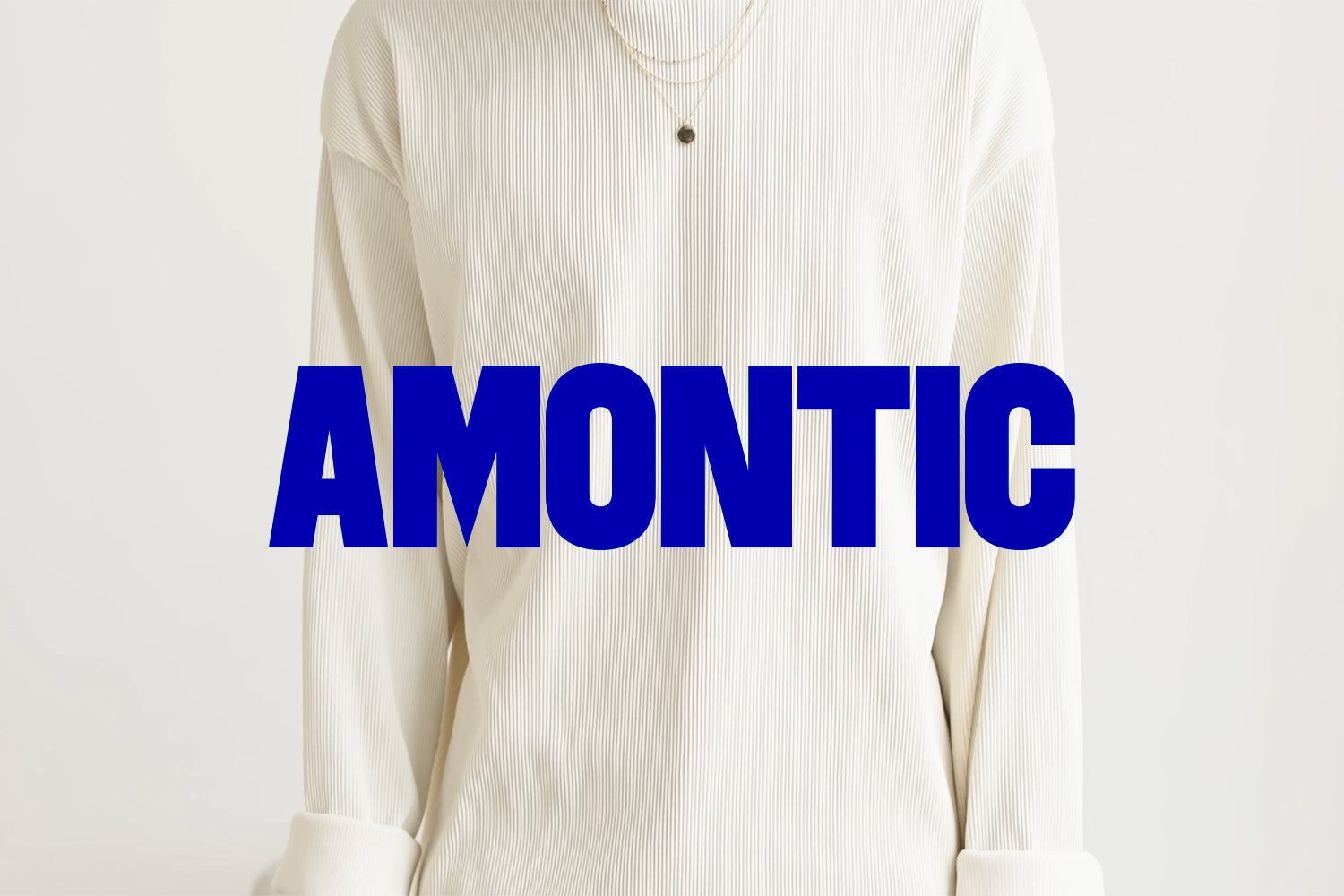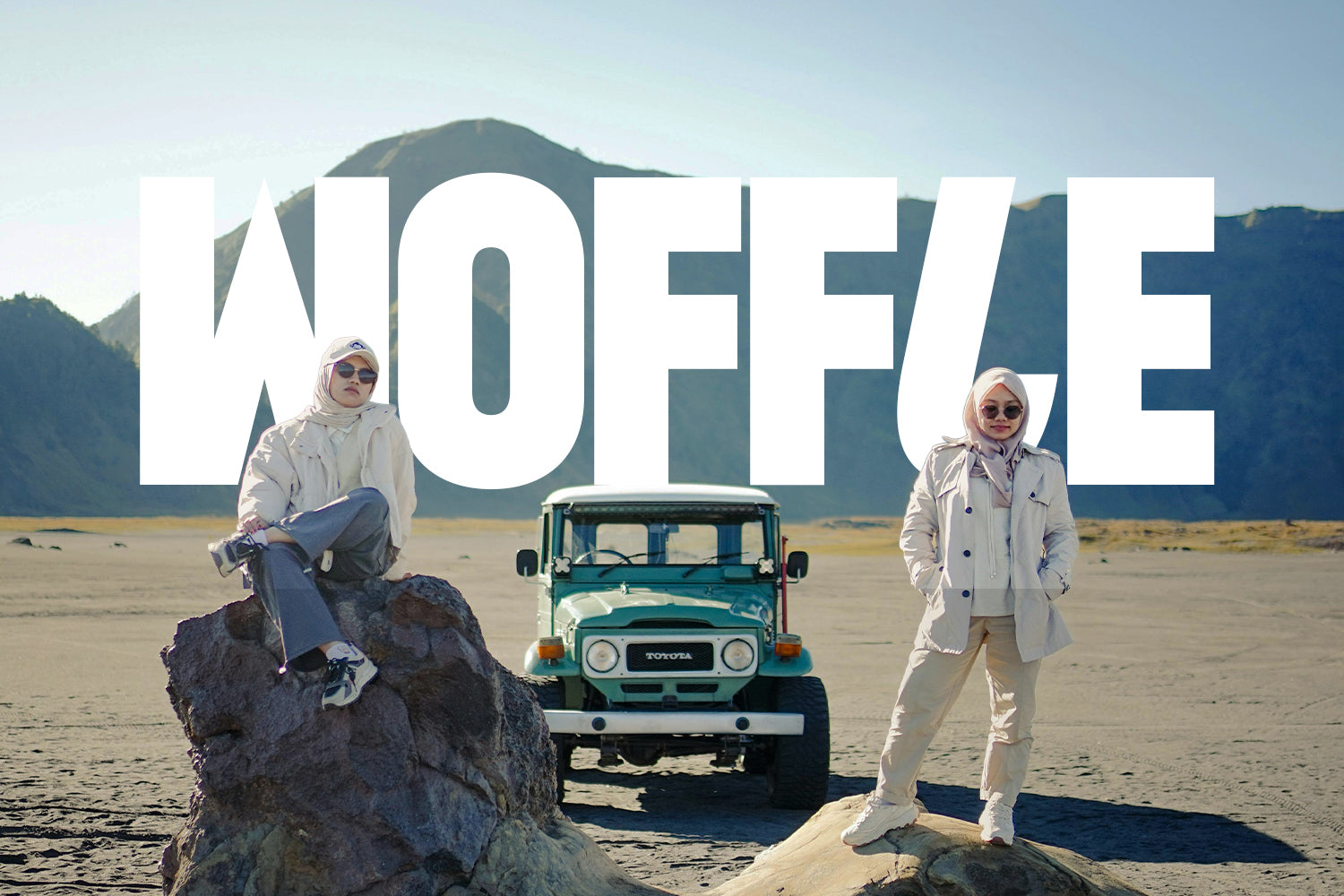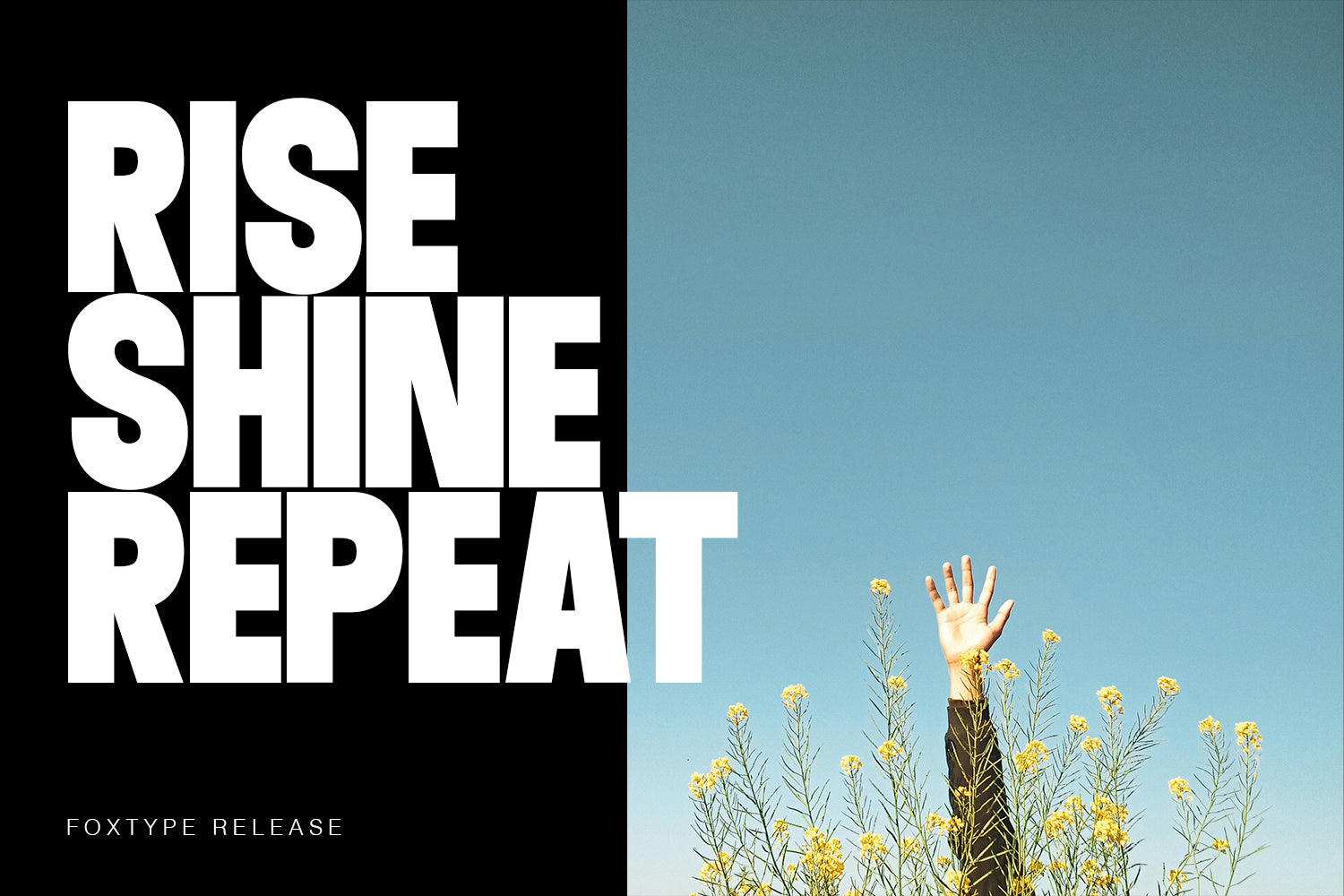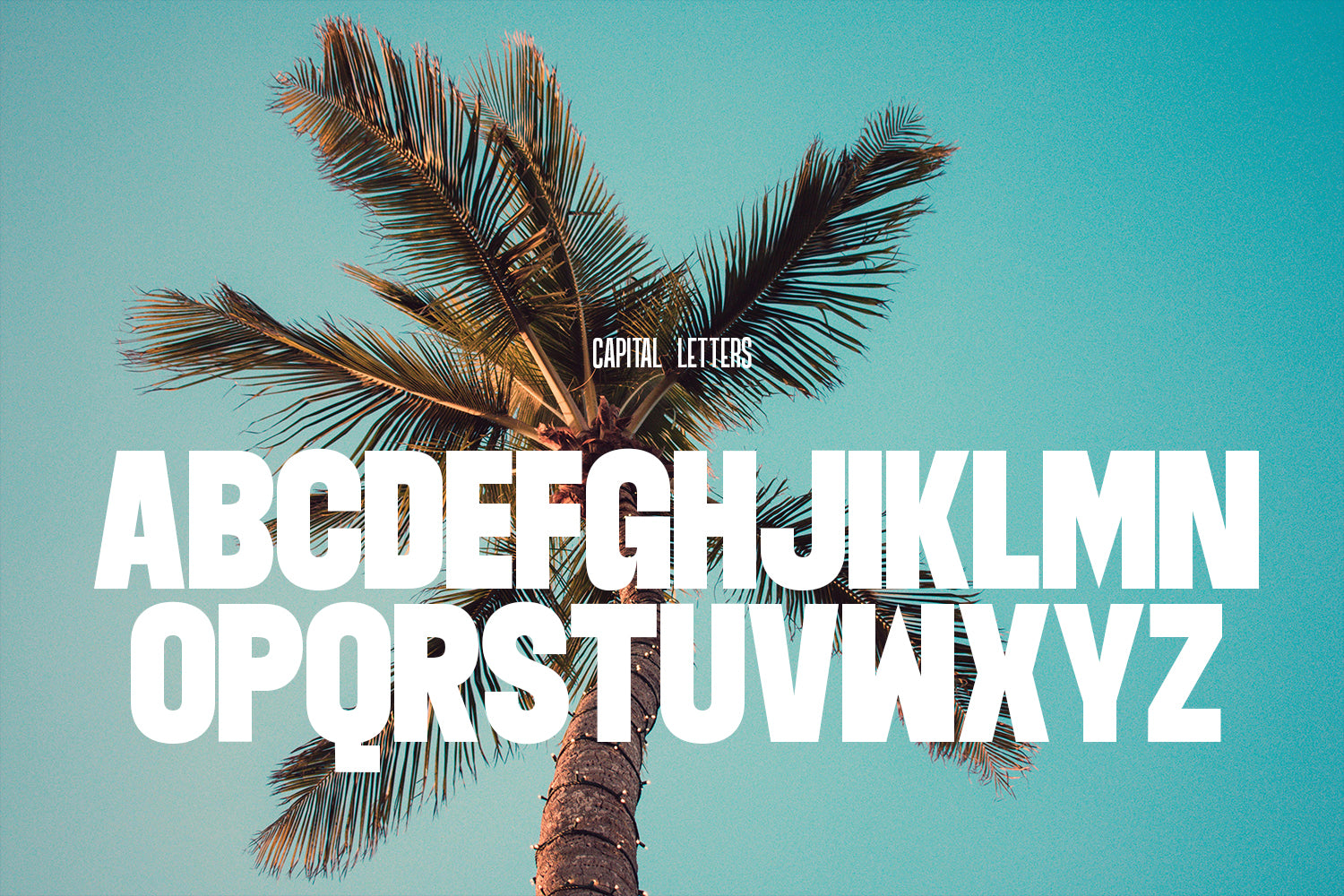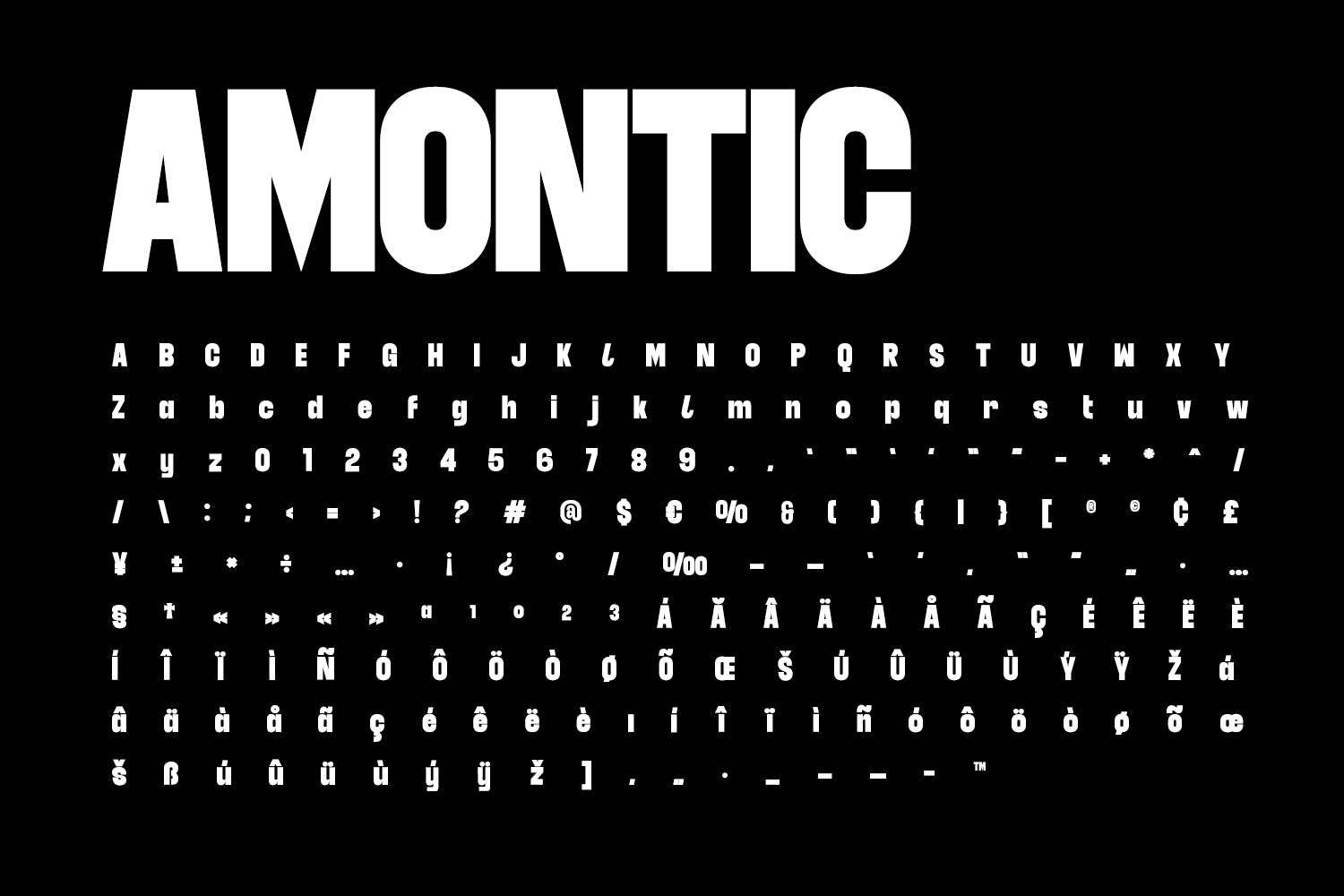
Amontic Display
Amontic Display is a bold and modern display typeface crafted by Foxtype, designed to deliver maximum visual impact with a clean and confident personality. Featuring strong geometric shapes and tightly balanced proportions, Amontic is built for projects that demand attention and clarity. This font comes in a single powerful weight, making it an ideal choice for statements that need to stand out.
With its solid structure and contemporary character, Amontic elevates any design with an instant sense of strength and style. Includes: OTF, TTF, WOFF, WOFF2